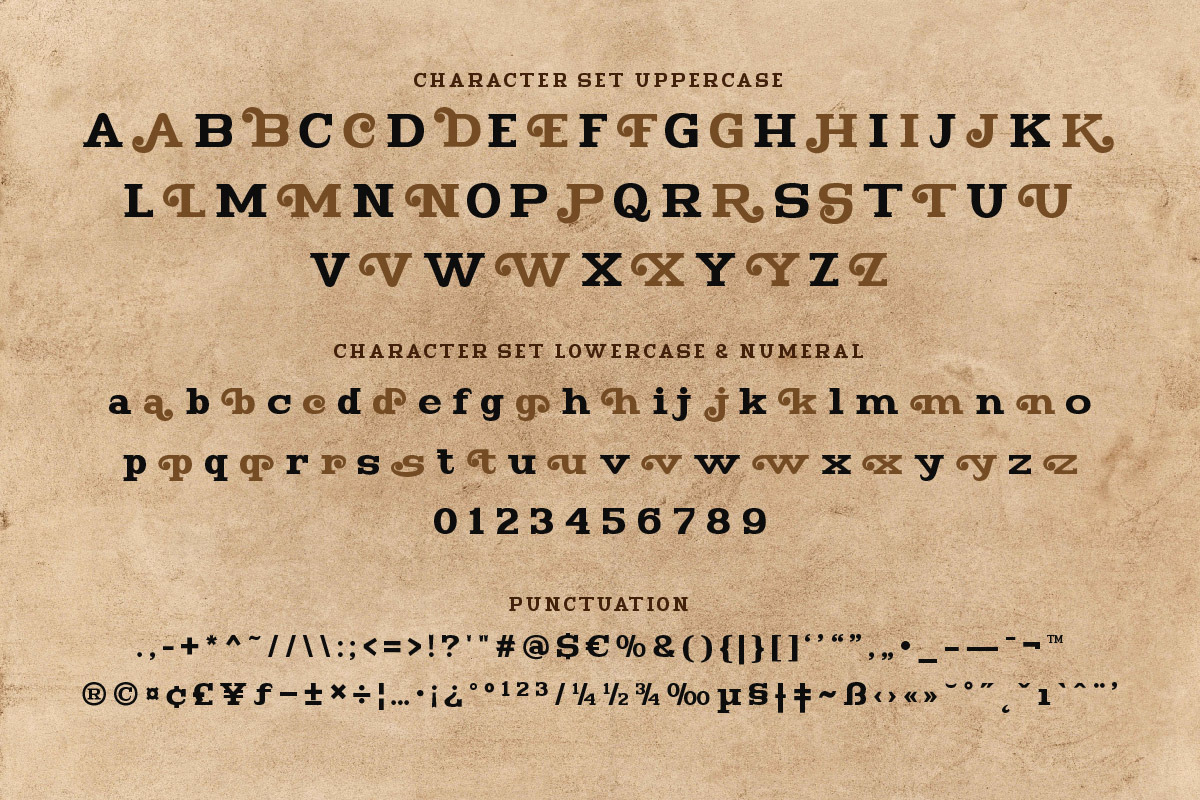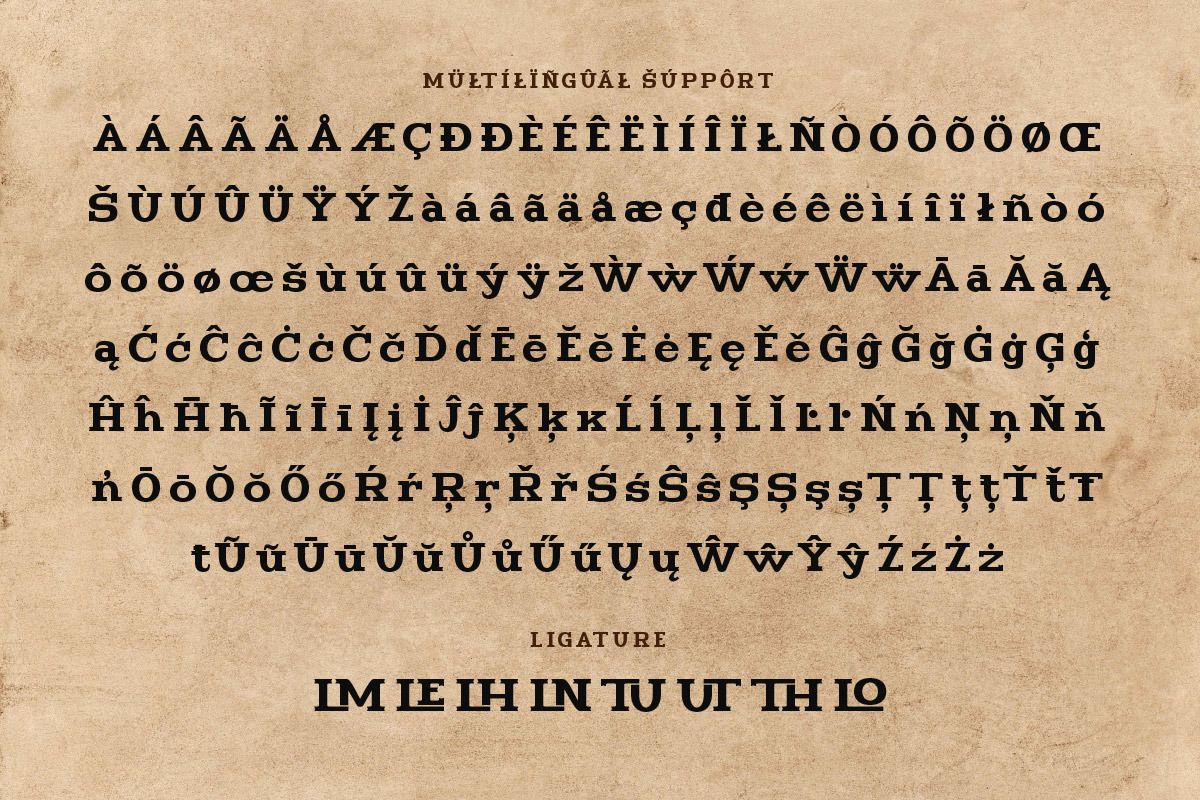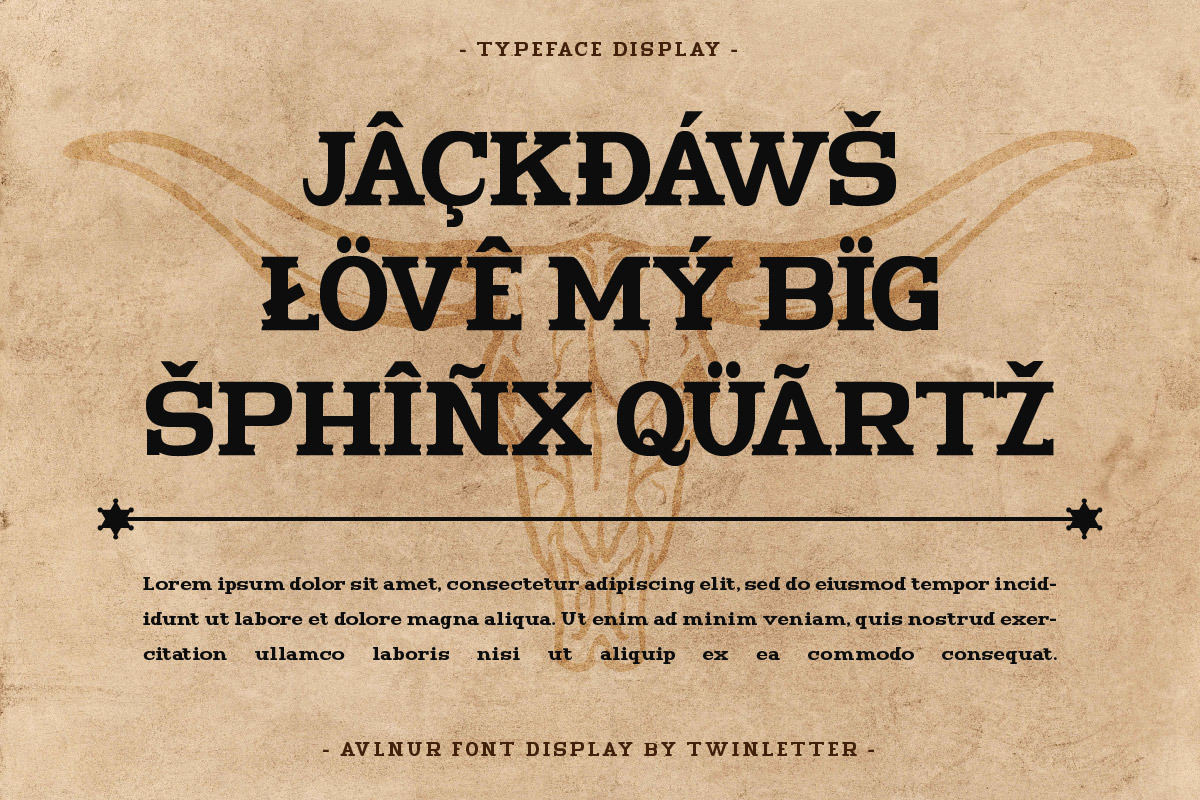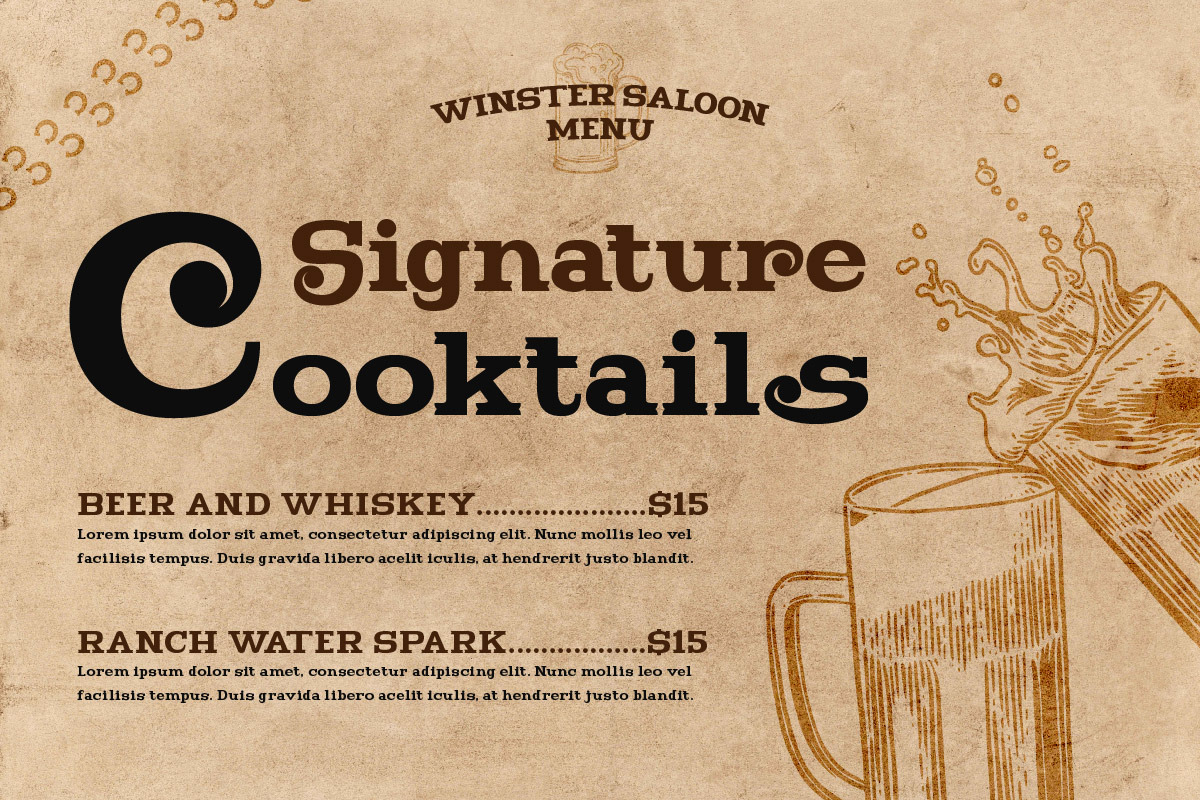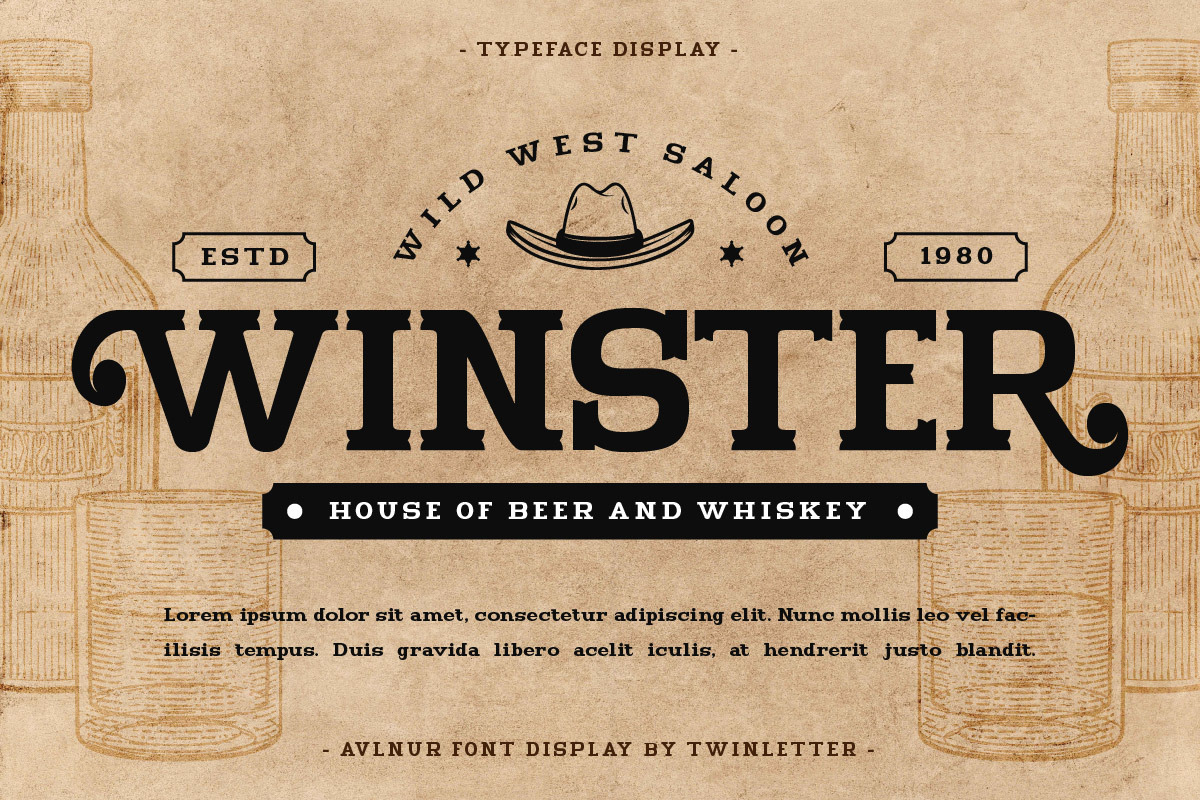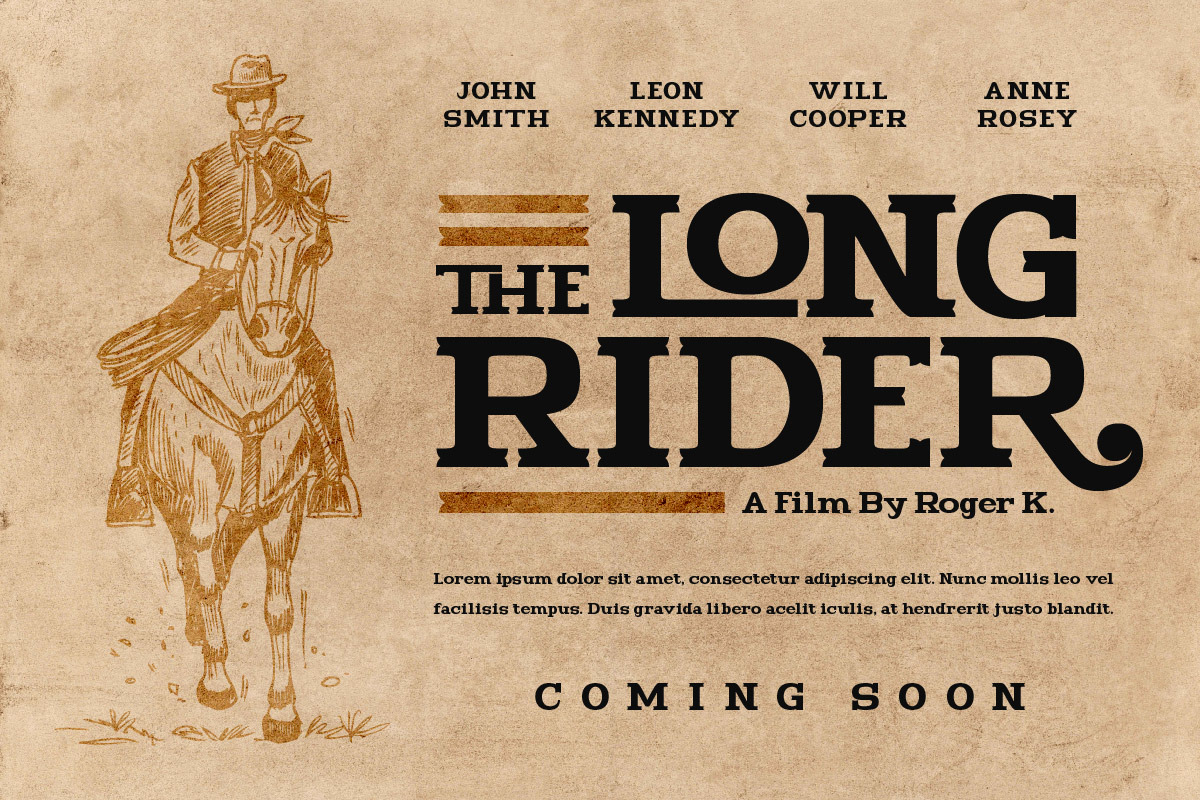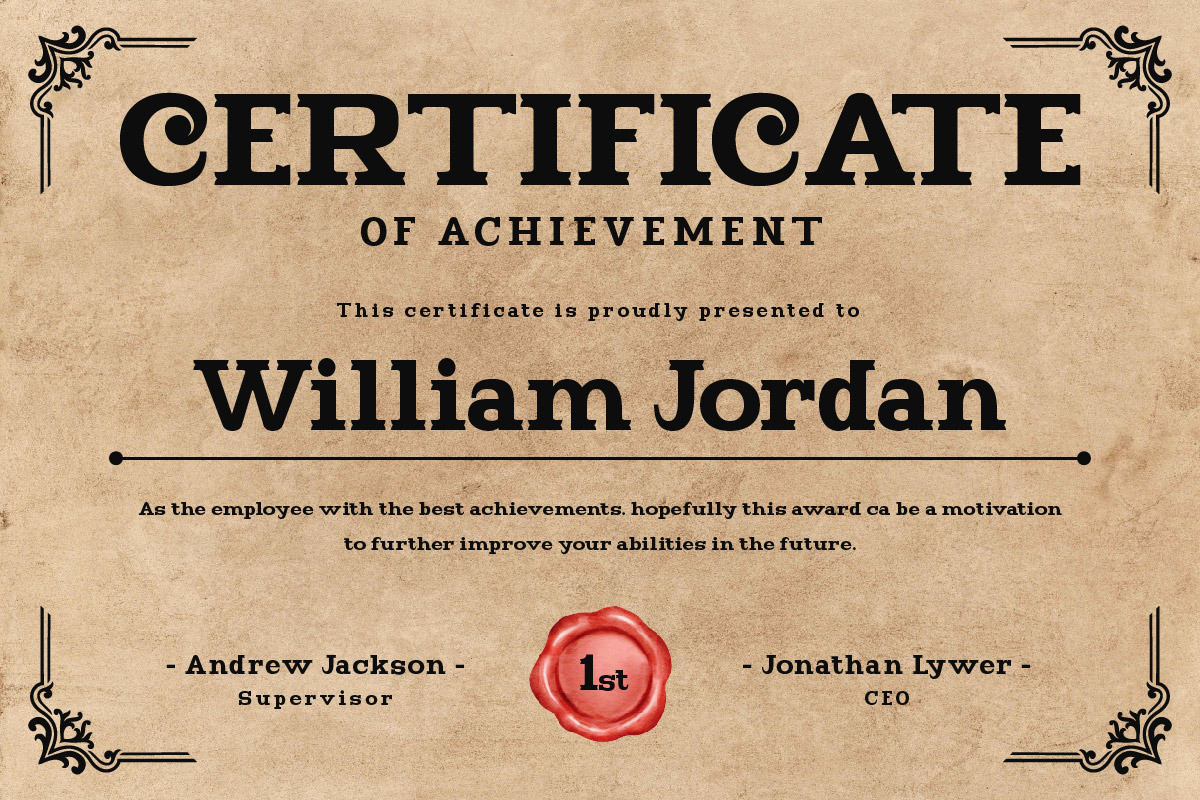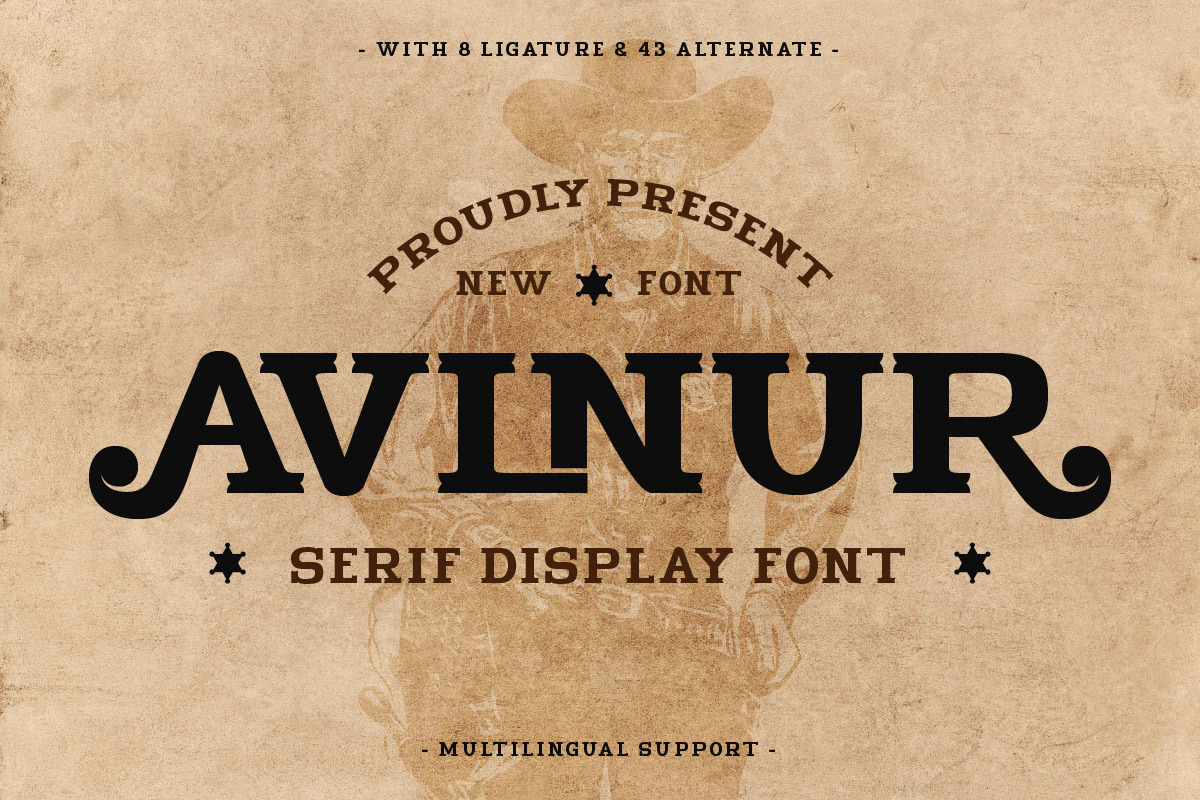
Avlnur - Serif Display Font
Avlnur is a serif display font that exudes sophistication and elegance. It’s not just a font, it’s a statement. With beautifully balanced characters and subtle serifs, Avlnur brings a level of sophistication to your designs that is unparalleled. It’s perfect for those designs where you need to convey a sense of elegance and sophistication, such as luxury brand logos or high-end invitations. When you use Avlnur, you’re not just choosing a font, you’re choosing a lifestyle.
- Fonts include Multilingual: Support for 85 languages. Afrikaans, Albanian, Asu, Basque, Bemba, Bena, Breton, Catalan, Chiga, Cornish, Croatian, Czech, Danish, Dutch, Embu, English, Esperanto, Estonian, Filipino, Finnish, French, Friulian, Galician, Gusii, Hungarian, Indonesian, Irish, Italian, Kabuverdianu, Kalenjin, Kamba, Kikuyu, Kinyarwanda, Latvian, Lithuanian, Lower, Sorbian, Luo, Luxembourgish, Luyia, Machame, Makhuwa-Meetto, Makonde, Malagasy, Maltese, Manx, Meru, Morisyen, North, Ndebele, Norwegian Bokmål, Norwegian Nynorsk, Nyankole, Oromo, Polish, Portuguese, Quechua, Romanian, Romansh, Rombo, Rundi, Rwa, Samburu, Sango, Sangu, Scottish, Gaelic, Sena, Serbian, Shambala, Shona, Slovak, Slovenian, Soga, Somali, Spanish, Swahili, Swedish, Swiss German, Taita, Teso, Turkish, Upper Sorbian, Uzbek (Latin), Volapük, Vunjo, Walser, Zulu.